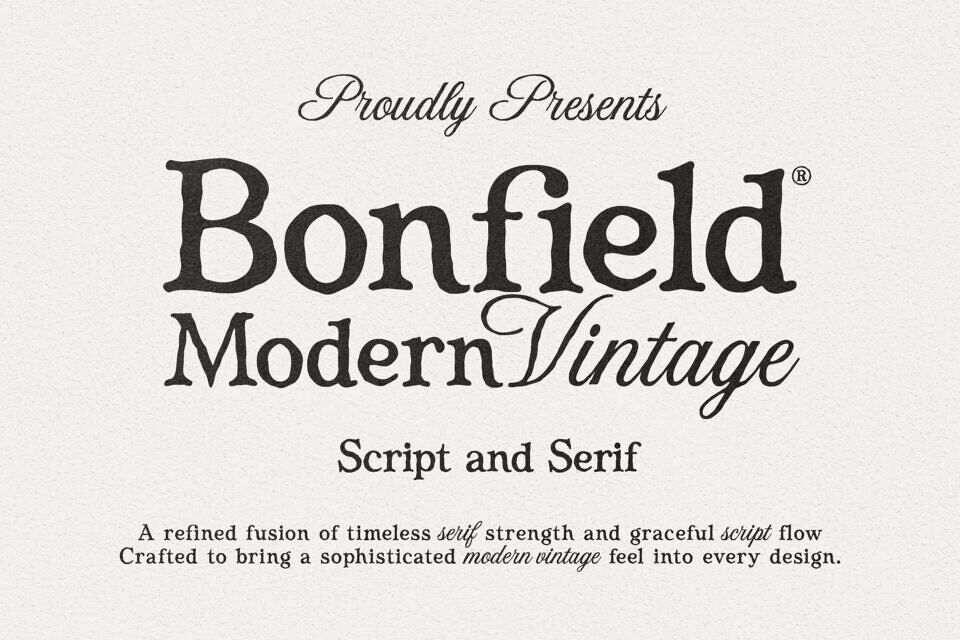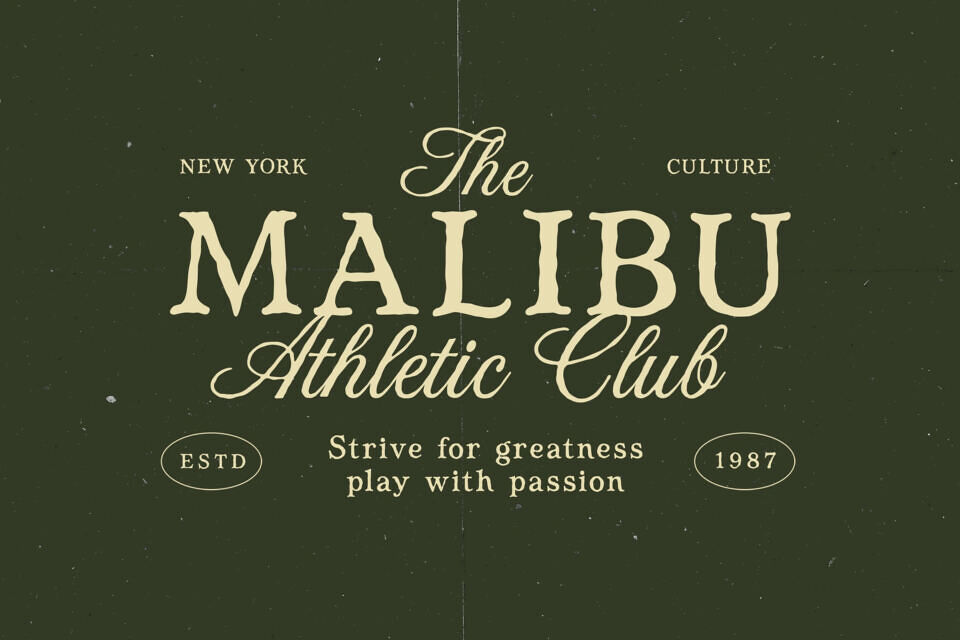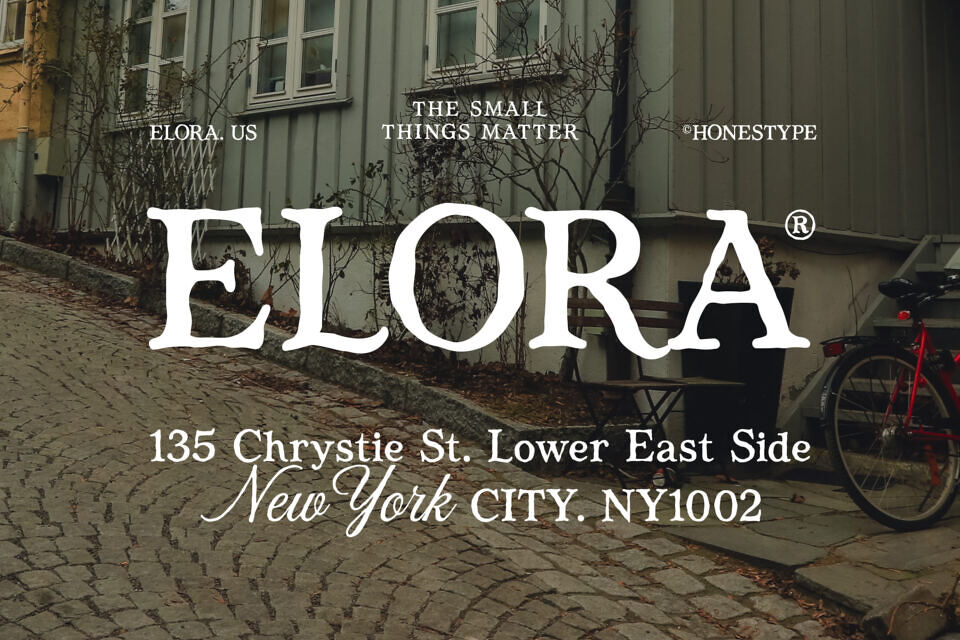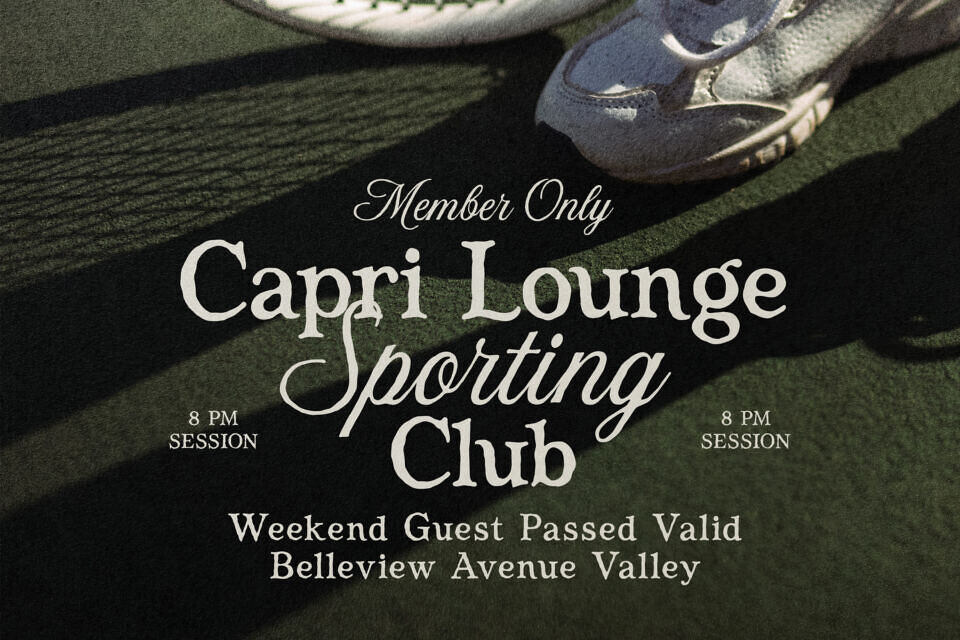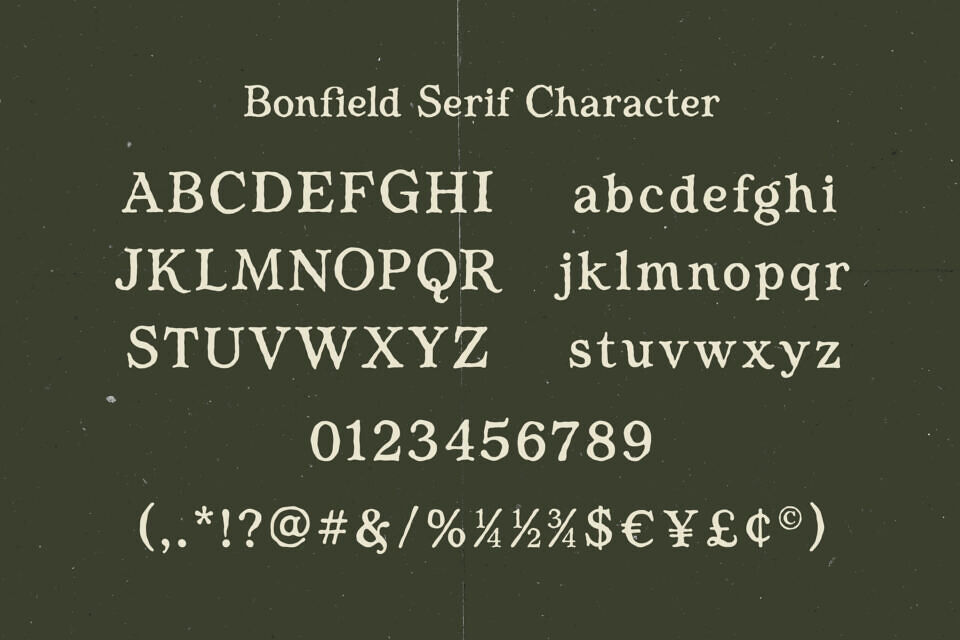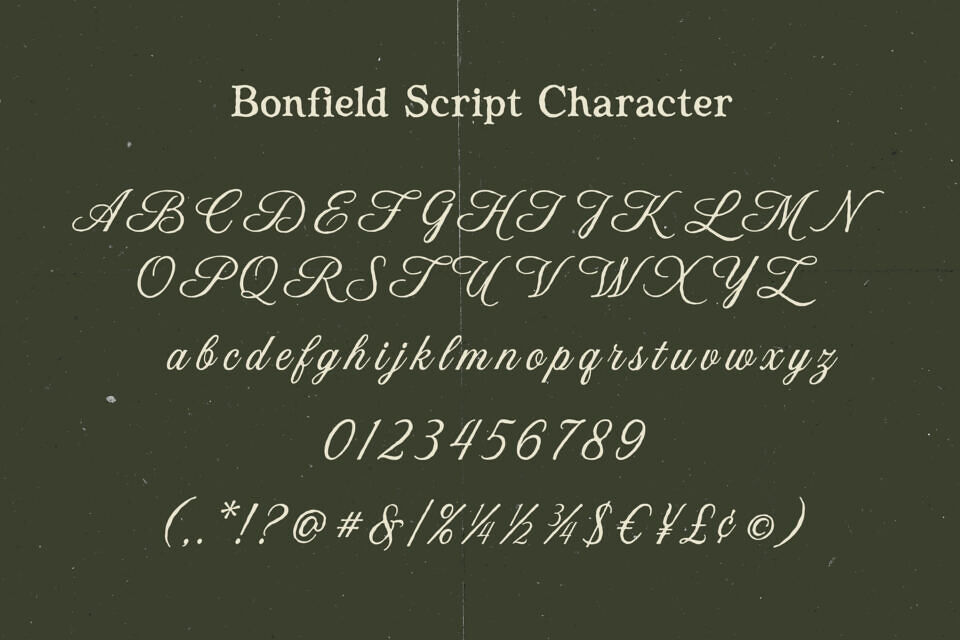
Bonfield Font
Bonfield is a refined fusion of classic serif structure and expressive script flow, designed to bring a timeless yet modern vintage aesthetic to your creative projects. This unique duo typeface combines the strength and readability of serif with the organic, handcrafted feel of script, resulting in a beautifully balanced and highly versatile font.
Bonfield’s distinctive edges and textured strokes evoke the warmth of handwritten lettering, bringing unique character to designs. Its imperfect charm pairs clarity with elegance, making it suitable for various applications, from logos to lifestyle branding. This font adds a touch of sophistication and vintage flair, elevating designs with a human feel.